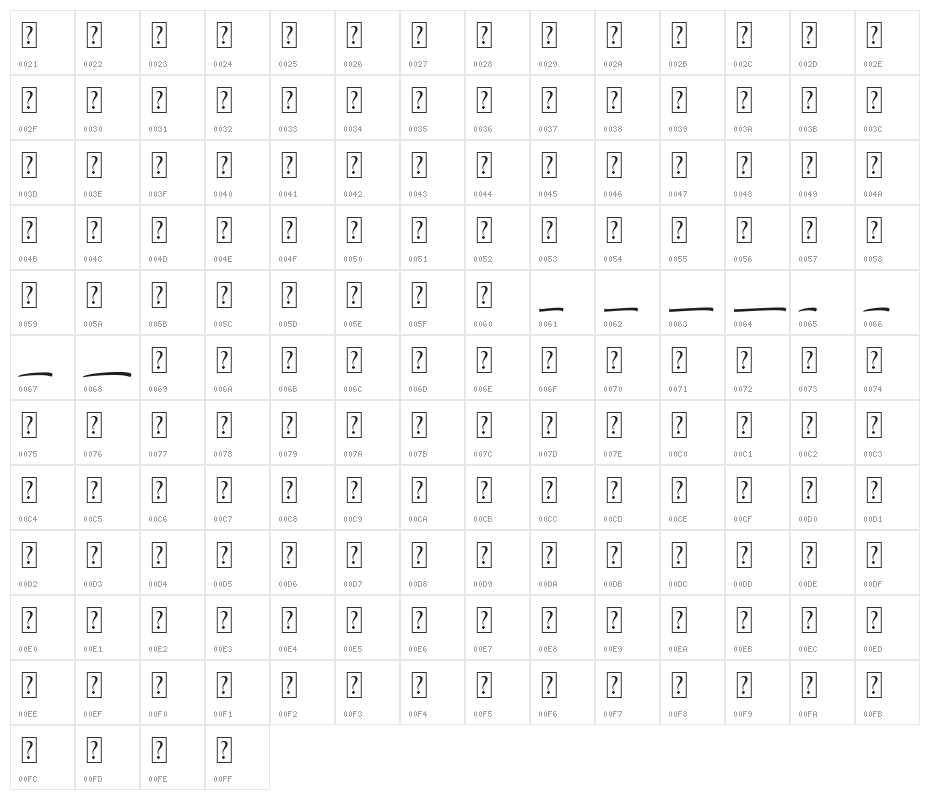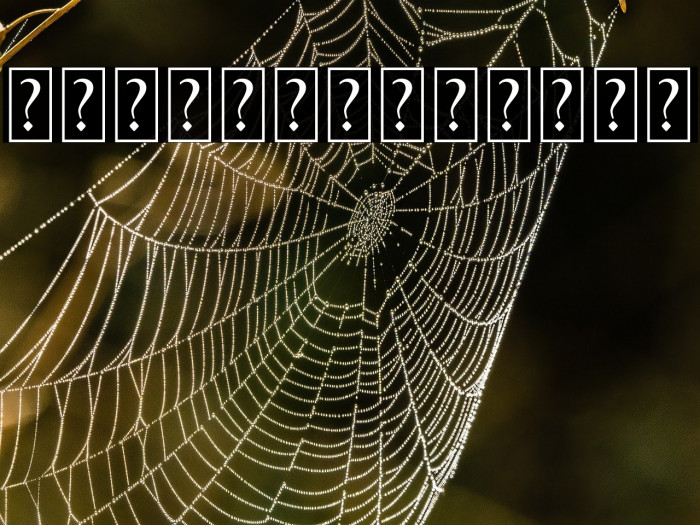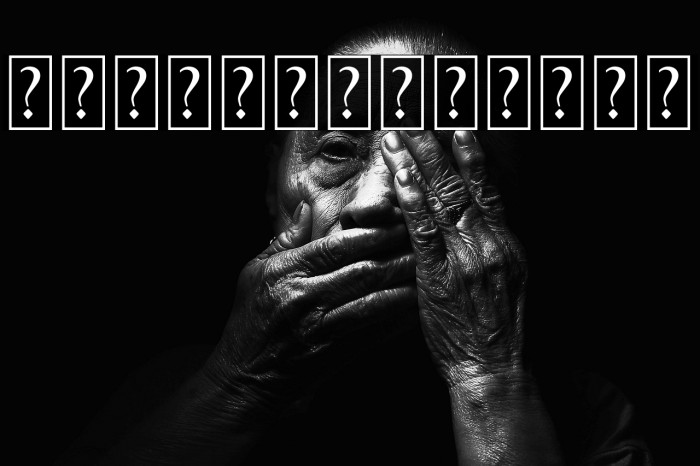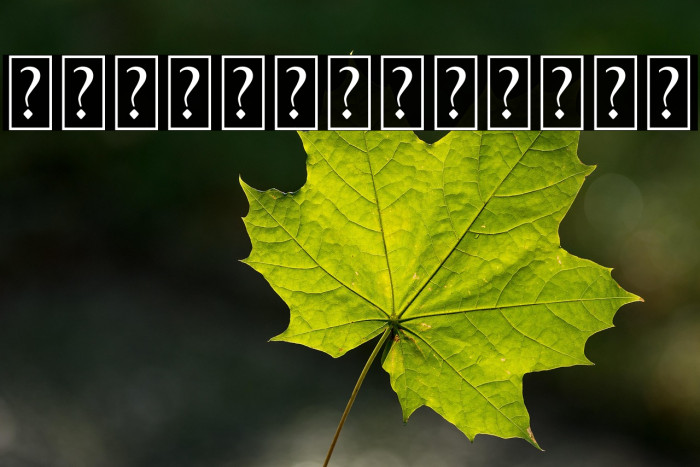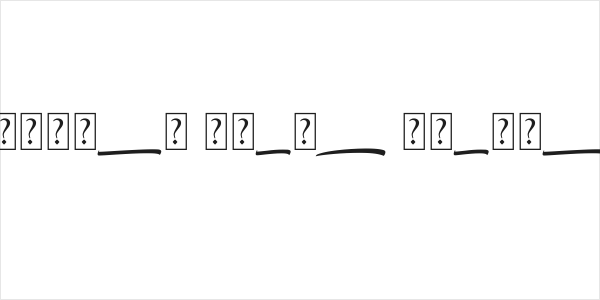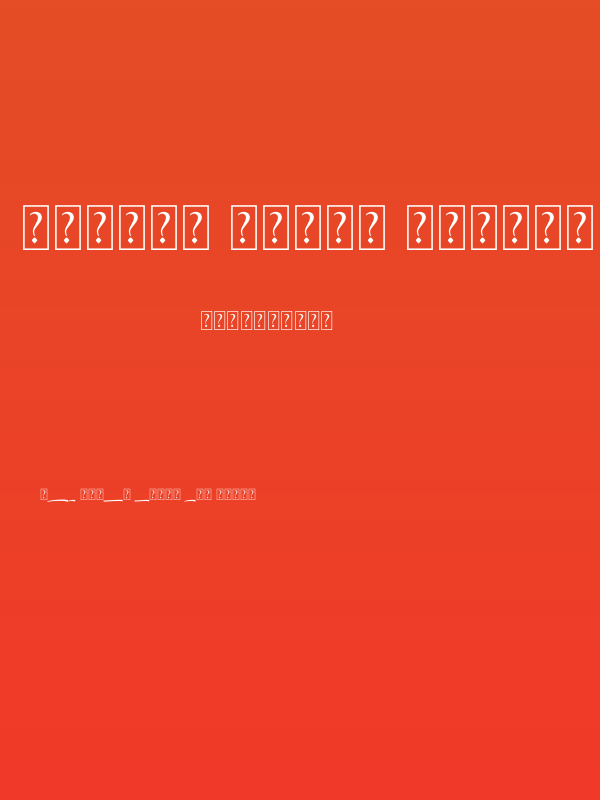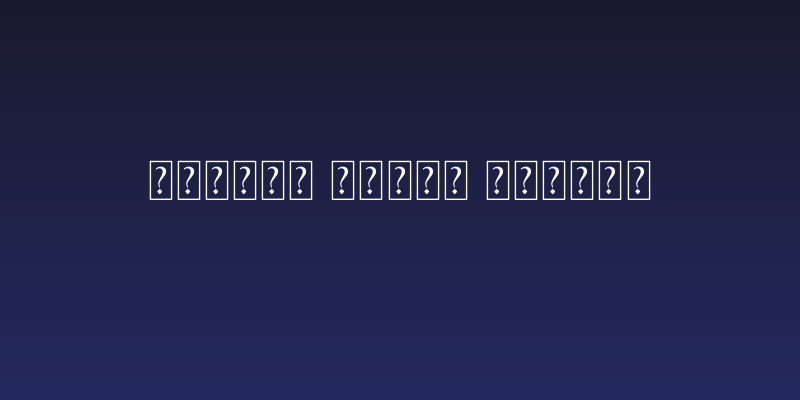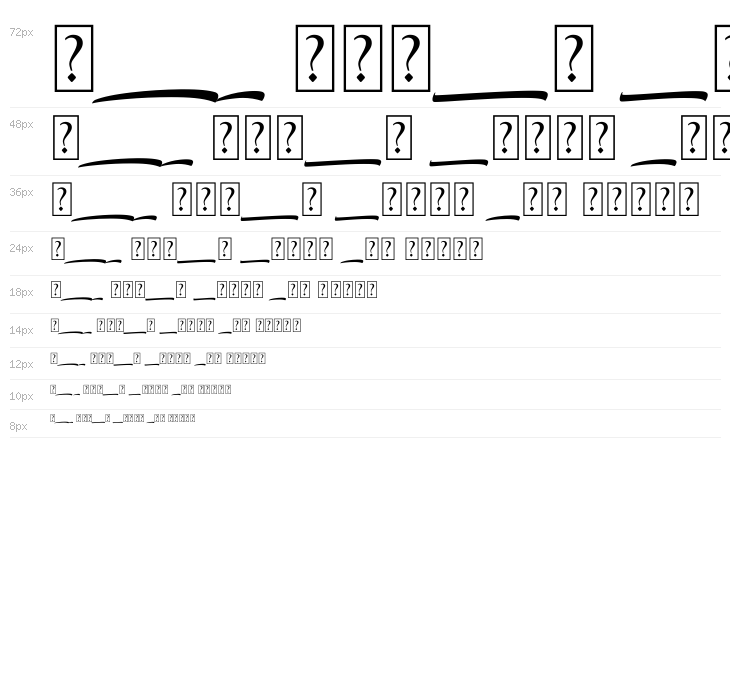
Hiluck Swash Italic Font
Hiluck Swash Italic Description
A decorative font with swash elements and an italic style, featuring exaggerated curves and flourishes.
| Use Case | Logos, decorative text, artistic projects. |
| Proposed Projects | Invitations, greeting cards, decorative headlines. |